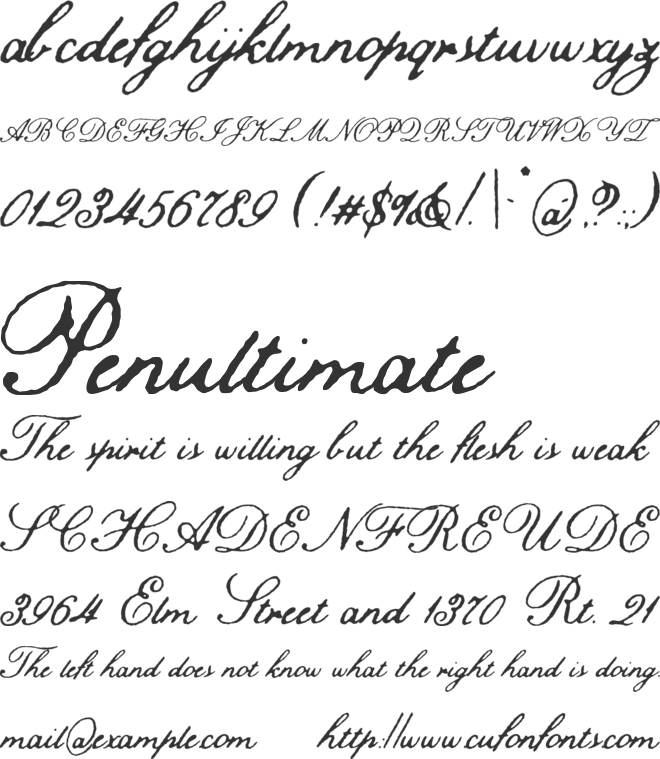
TC Hamilton Arc Script Font
This stunning handwritten, vintage-inspired script font features contextual ligatures, standard ligatures, and stylistic alternates. It's a real powerhouse and just a small part of a much larger font collection!